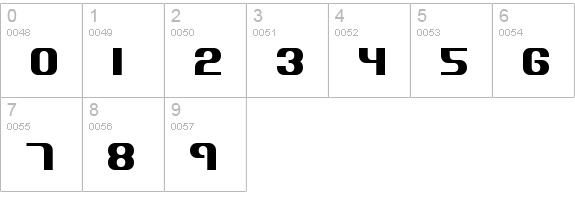
Dynamic BRK font is a versatile and modern typeface that exudes energy and style. With its dynamic letterforms and bold strokes, this font is perfect for making a statement in any design project. Whether you're creating a poster, logo, or website, Dynamic BRK font will add a touch of sophistication and flair. The best part? Dynamic BRK font is completely free to download at FontsMarket.com. You can easily access this unique and eye-catching font to elevate your designs without breaking the bank. Don't miss out on the opportunity to enhance your creative projects with the striking and impactful Dynamic BRK font.